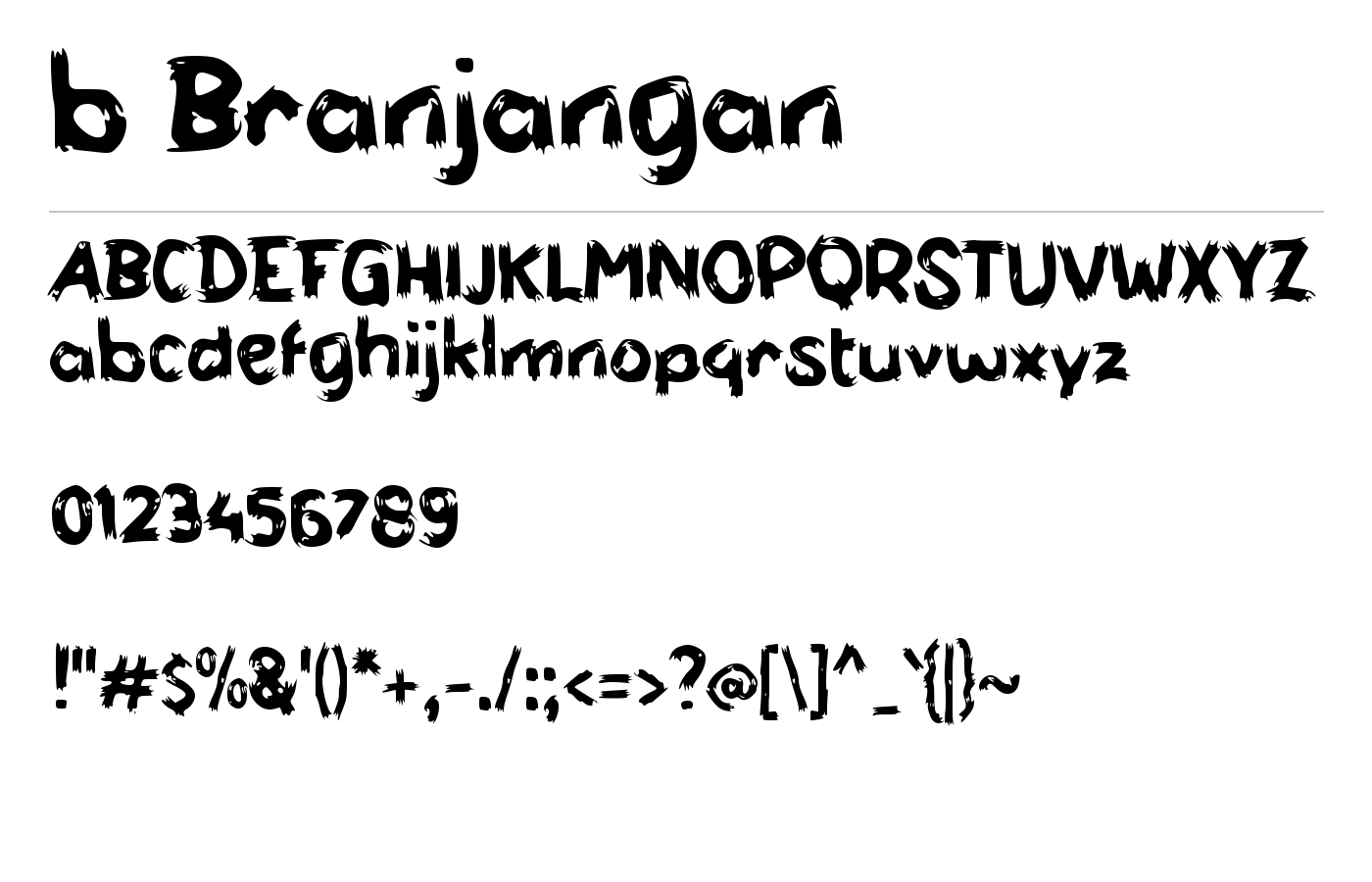
Branjangan is a bold, playful display font with a unique, dripping brushstroke style that gives it a lively, slightly edgy personality. Its irregular and chunky letterforms, combined with rough, textured edges, make it perfect for creative projects that aim to grab attention with a fun, dynamic vibe. Ideal for posters, logos, and packaging, Branjangan works well where a strong, expressive statement is needed.
b Branjangan Font
About b Branjangan Font